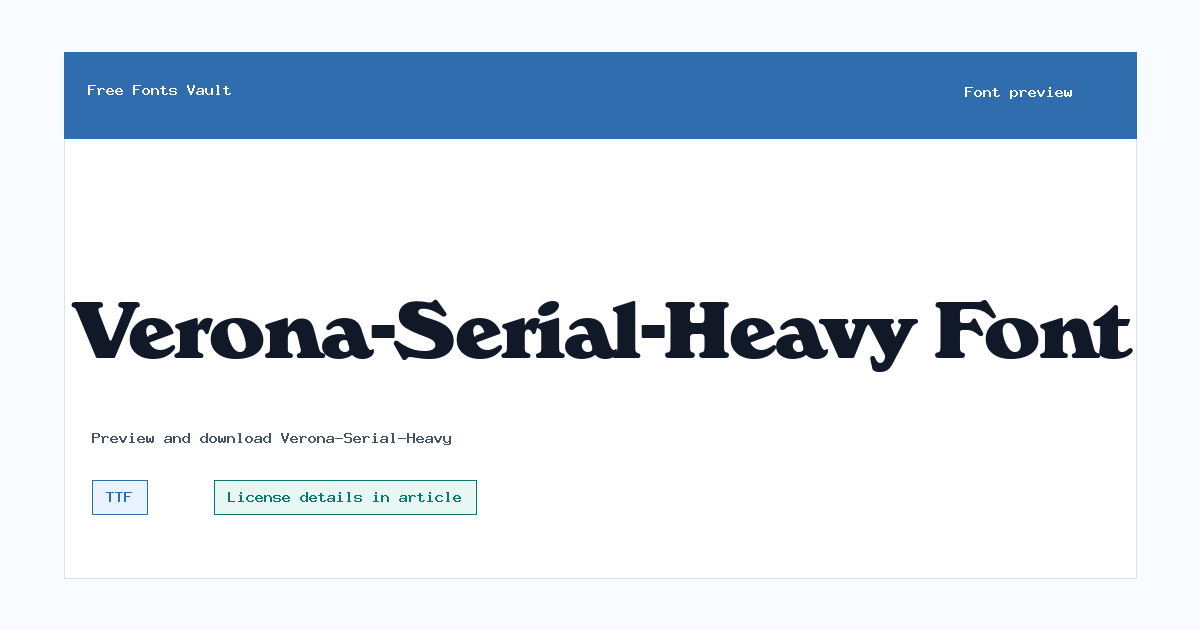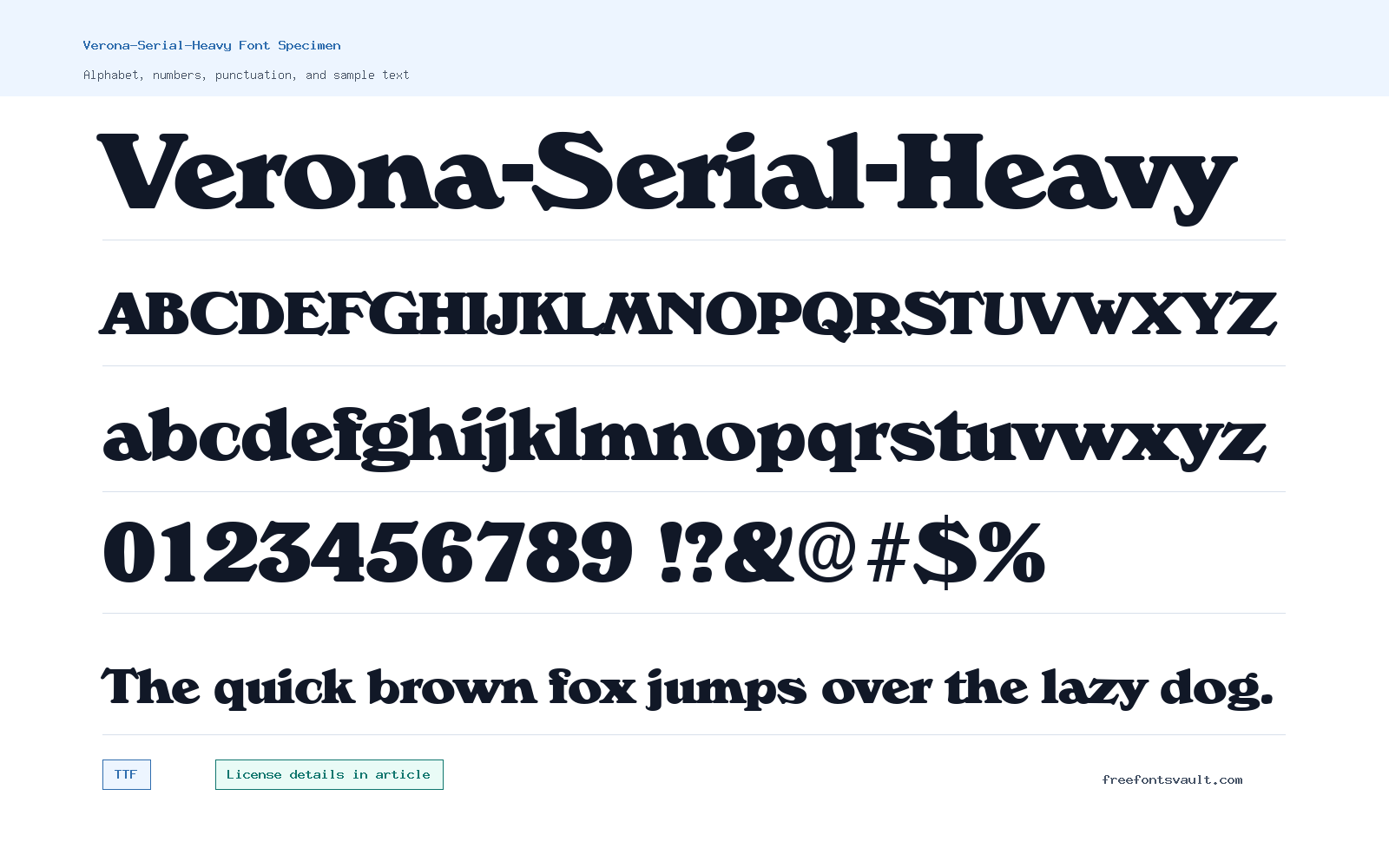
Verona-Serial-Heavy
Verona-Serial-Heavy is a bold TTF font with an 800 weight, built for text that needs a firm, heavy presence. Use the preview tool to test your own words before downloading, especially if you plan to use it for headings, labels, posters, or other short display settings.
About Verona-Serial-Heavy
Verona-Serial-Heavy is best approached as a strong display option rather than a long-reading text face. Its weight is marked as 800, so it is meant to look dense and prominent on the page. That makes it useful when a design needs a clear title, a compact wordmark-style line, a poster heading, a bold website hero phrase, or a short label that should not fade into the background. Because only one regular TTF variant is listed, there is no separate italic, light, condensed, or extended companion shown here. If your layout needs a full type system with several weights, you may need to pair this font with another family for body copy, captions, and interface text.
For the best result, preview Verona-Serial-Heavy with the exact words you want to use. Heavy fonts can change character depending on the text: short names may look solid and balanced, while longer sentences can feel crowded. Test uppercase and lowercase forms, check spacing between tight letter pairs, and try the font at the size you actually plan to use. If you are designing for screens, compare it at desktop and mobile sizes before committing. For print work, leave enough margin and line spacing so the heavy strokes have room to breathe. A simple sans serif or readable serif can work well beside it when you need supporting text that stays quieter.
- Single regular TTF variant with a listed 800 font weight for heavy display use.
- Practical for short, bold text where impact matters more than extended reading comfort.
- Headlines, poster titles, cover text, banners, and bold website hero lines.
- Short labels, display names, logo mockups, and typographic experiments where a heavy style is needed.
What style is Verona-Serial-Heavy?
The listed variant is regular style with an 800 weight, so it should be treated as a heavy display font for bold visual emphasis.
Can I use it for body text?
It is better suited to headings and short display text. For paragraphs, pair it with a simpler, more readable font and keep Verona-Serial-Heavy for emphasis.
Try your actual title, brand name, or phrase. Check spacing, readability at your target size, uppercase versus lowercase, and how the heavy weight works beside your other fonts.